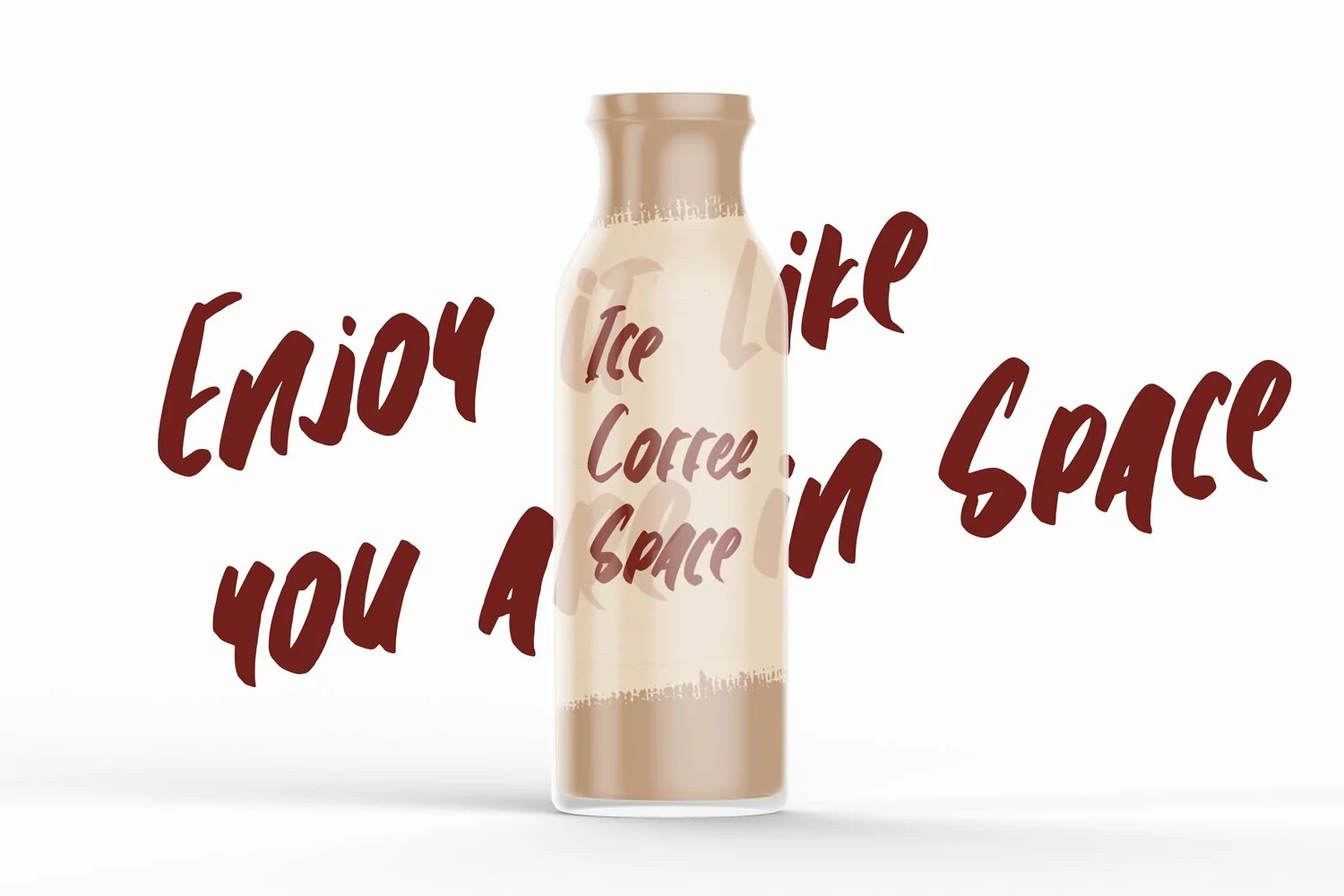
Satellite - SVG Font that contain lowercase, uppercase, symbol, and also support multi language. There’s a lot ligatures in this font. This Font also comes with ligatures, alternates and many more. this font suitable for fashion, branding, catalog and other design what you want.